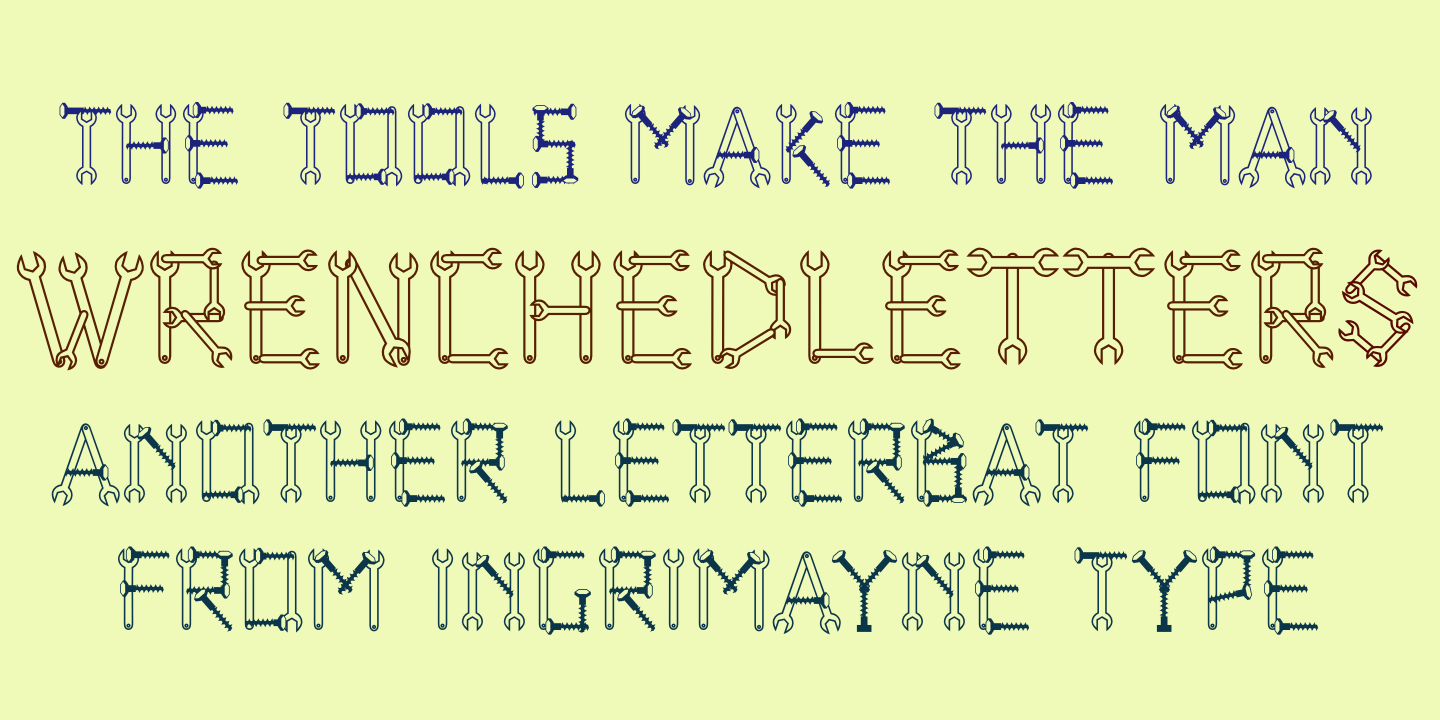
WrenchedLetters Font Free Download is a rugged and bold display typeface that adds an industrial, hand-crafted vibe to your design projects. Perfect for logos, posters, branding, and any creative work needing a raw and gritty touch, WrenchedLetters stands out with its distinctive style.
Its unique letterforms resemble hand-forged metalwork, bringing authenticity and personality to your visuals. Whether you’re designing merchandise, album covers, or streetwear branding, WrenchedLetters Font Free Download delivers a strong and memorable impact.